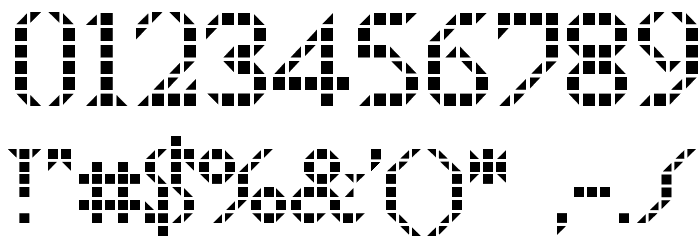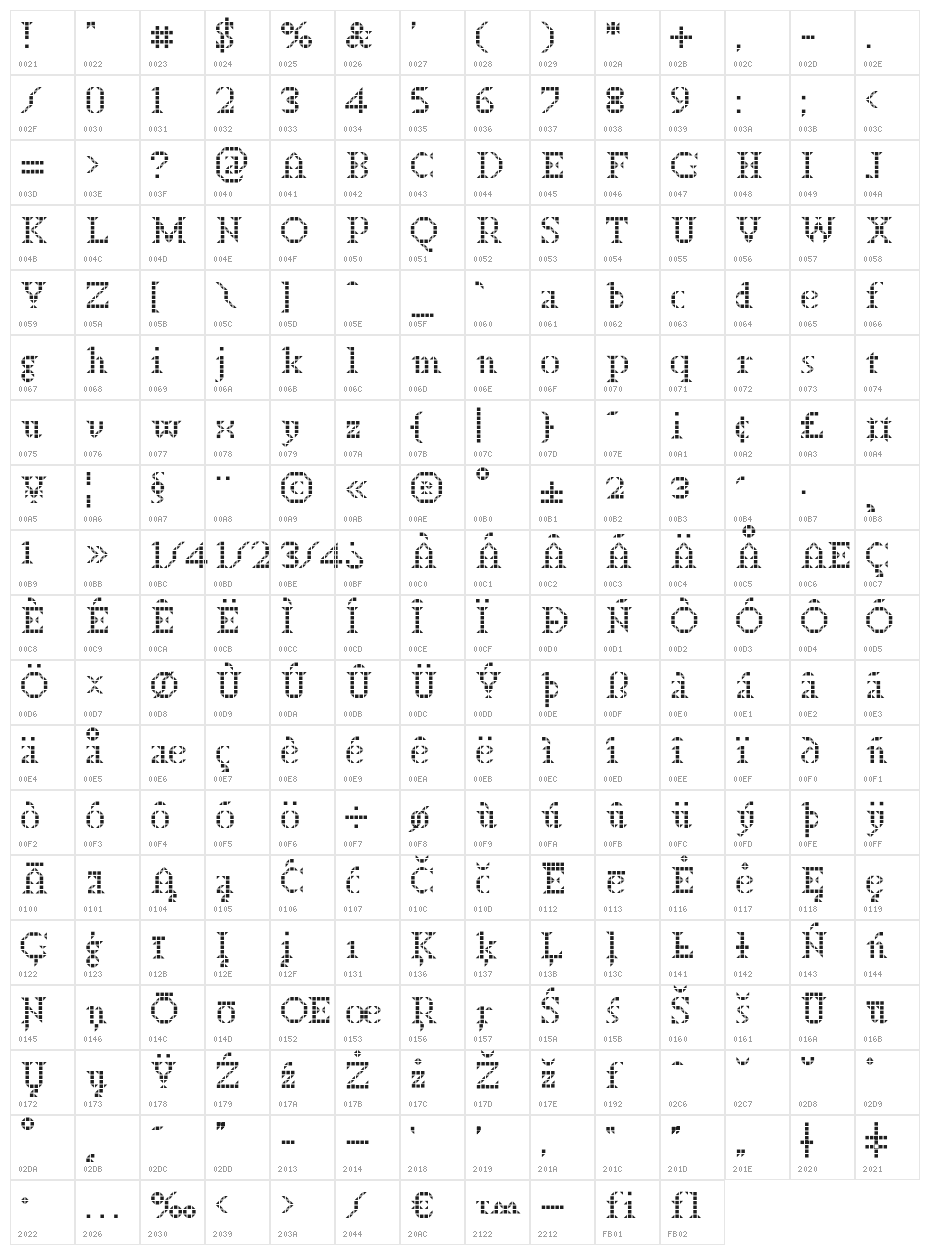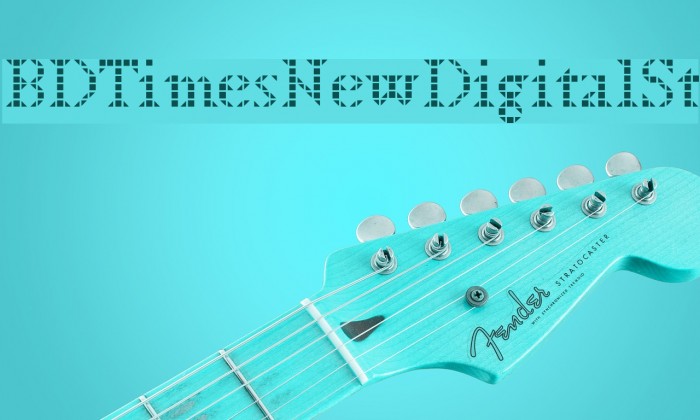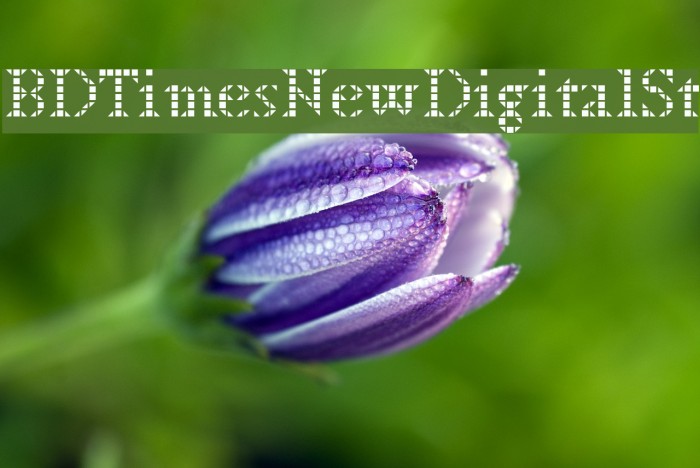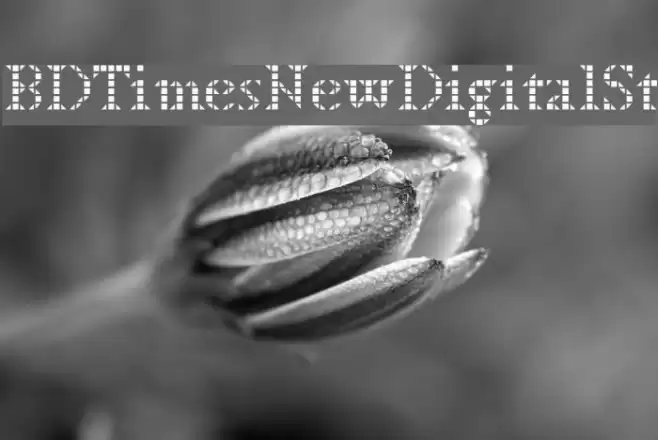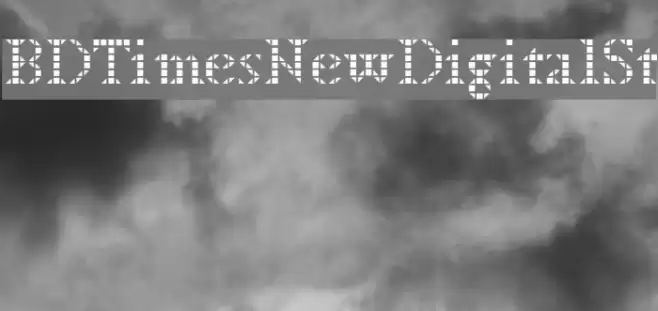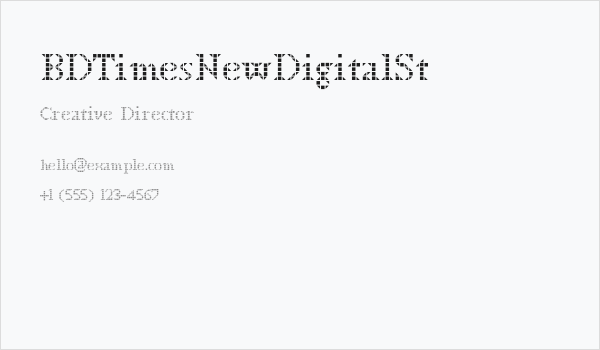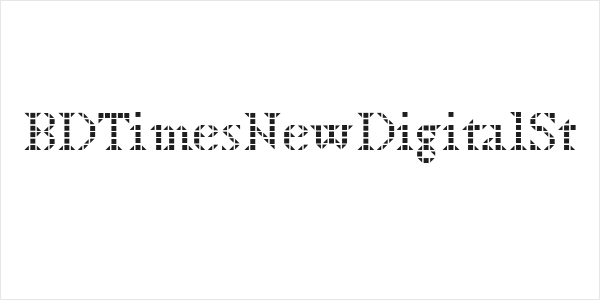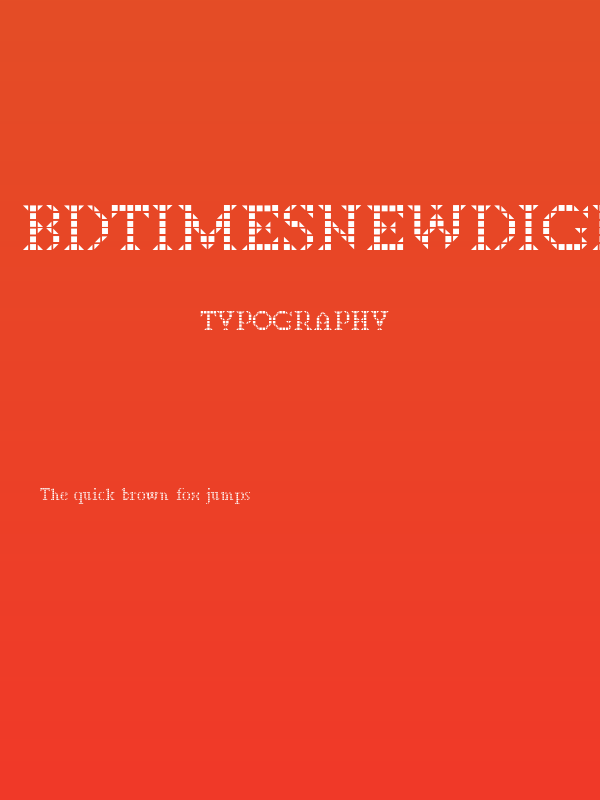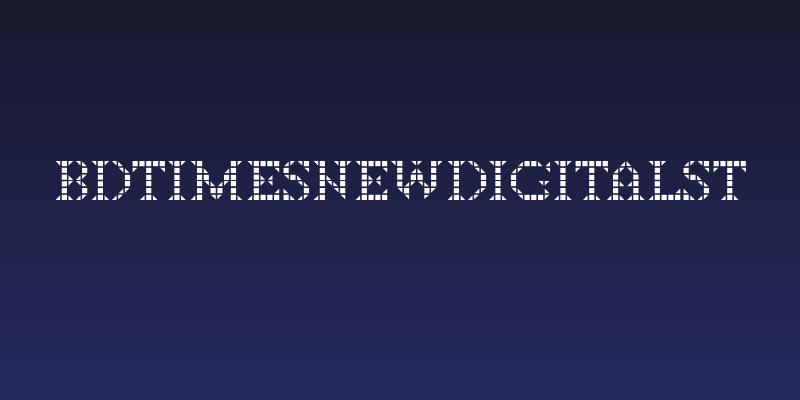
BDTimesNewDigitalSt Font
BDTimesNewDigitalSt Description
This font features a unique digital aesthetic, characterized by its pixelated, block-like structure. Each character is composed of small, evenly spaced squares, creating a mosaic effect that is both modern and reminiscent of early digital displays. The uppercase and lowercase letters maintain a consistent style, with sharp angles and a geometric form. Numbers and special characters follow the same design principles, ensuring uniformity across all glyphs. This font's distinct appearance makes it ideal for projects that require a futuristic or tech-inspired look.